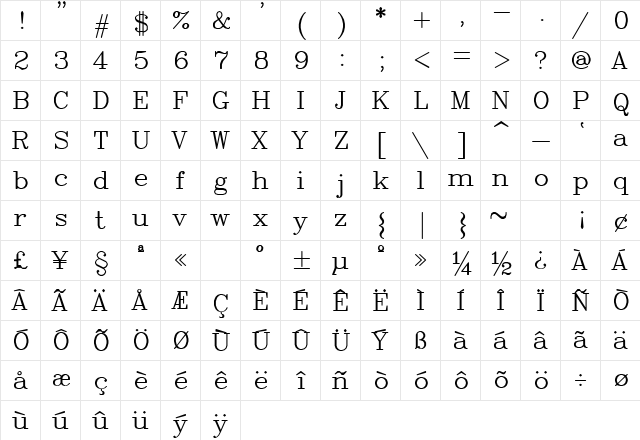
SWRomnc Regular
Design Context for SWRomnc Typeface
SWRomnc is a composed and adaptable typeface that performs quietly and consistently across a wide range of design contexts.